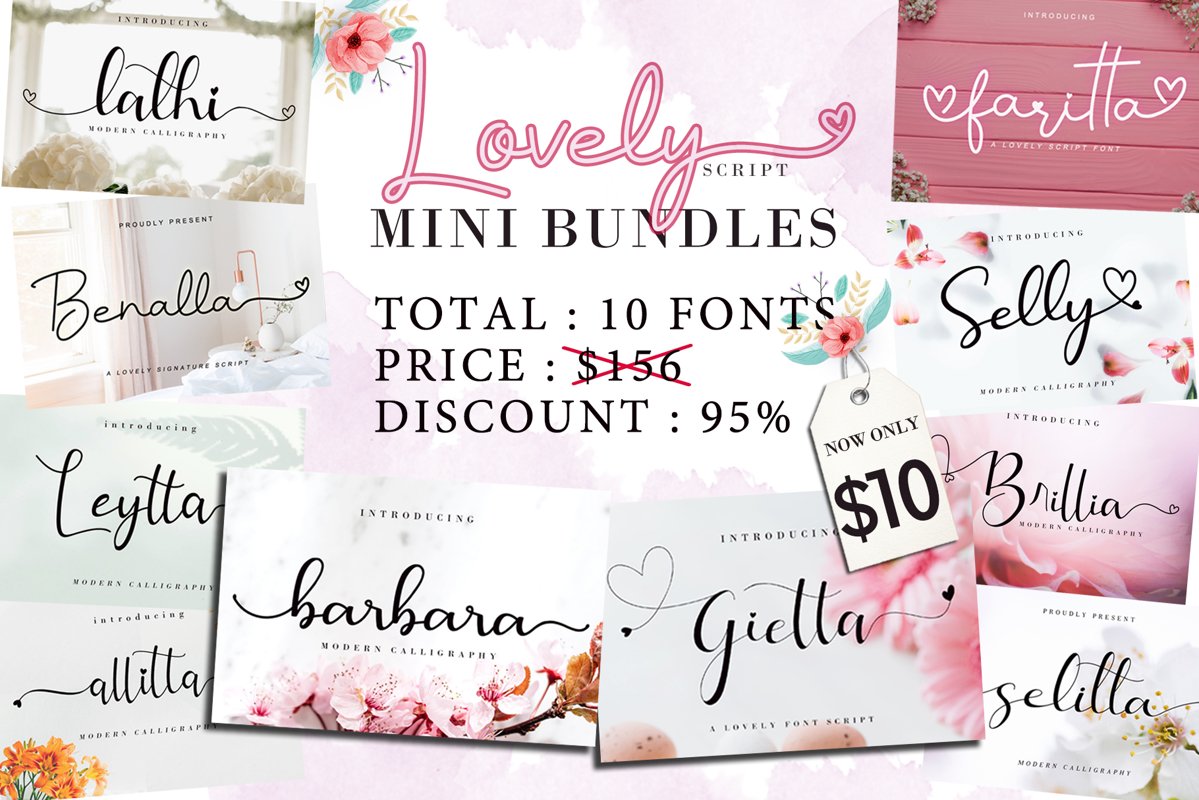
The 10 in 1 Lovely Script Bundle
The 10 in 1 Lovely Script Bundle by AEN Creative Studio
Our first exclusive bundle is an installment of "The 10 in 1 Lovely Script Bundle" is filled with 10 Typefaces (more than 15 fonts).
This set includes 10+ typefaces with more than 15+ fonts of my Modern Calligraphy and Script fonts!
1. Barbara Calligraphy
2. Gietta
3. Brillia Calligraphy
4. Faritta
5. Selly Calligraphy
6. Selitta
7. Benalla
8. Lathi
9. Leytta
10. Allitta
1.Lattiefa
2.Ravenna